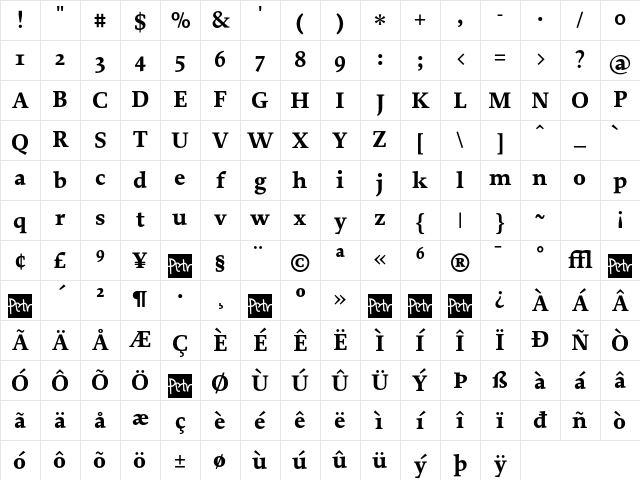
Proforma Bold Free Font
Proforma Bold
Design Context for Proforma
Proforma is a composed and adaptable typeface that performs quietly and consistently across a wide range of design contexts. Its bold stroke weight gives it real presence on the page.